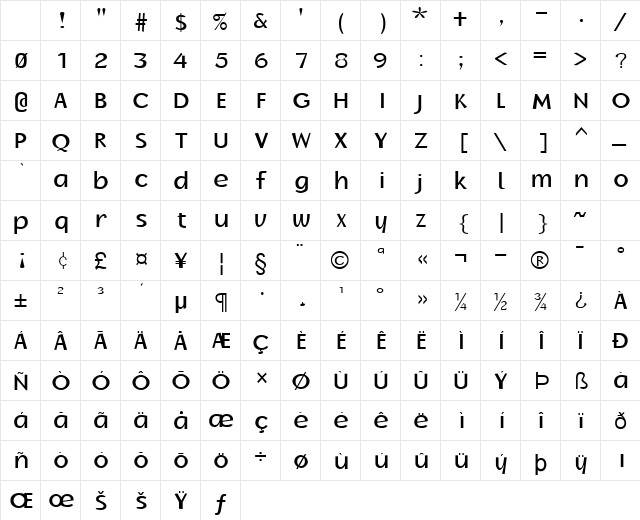
Complete Oak-Ridge Normal glyph index. Displaying only characters natively supported by Oak-Ridge Normal font.
Oak-Ridge is a composed and adaptable typeface that performs quietly and consistently across a wide range of design contexts.